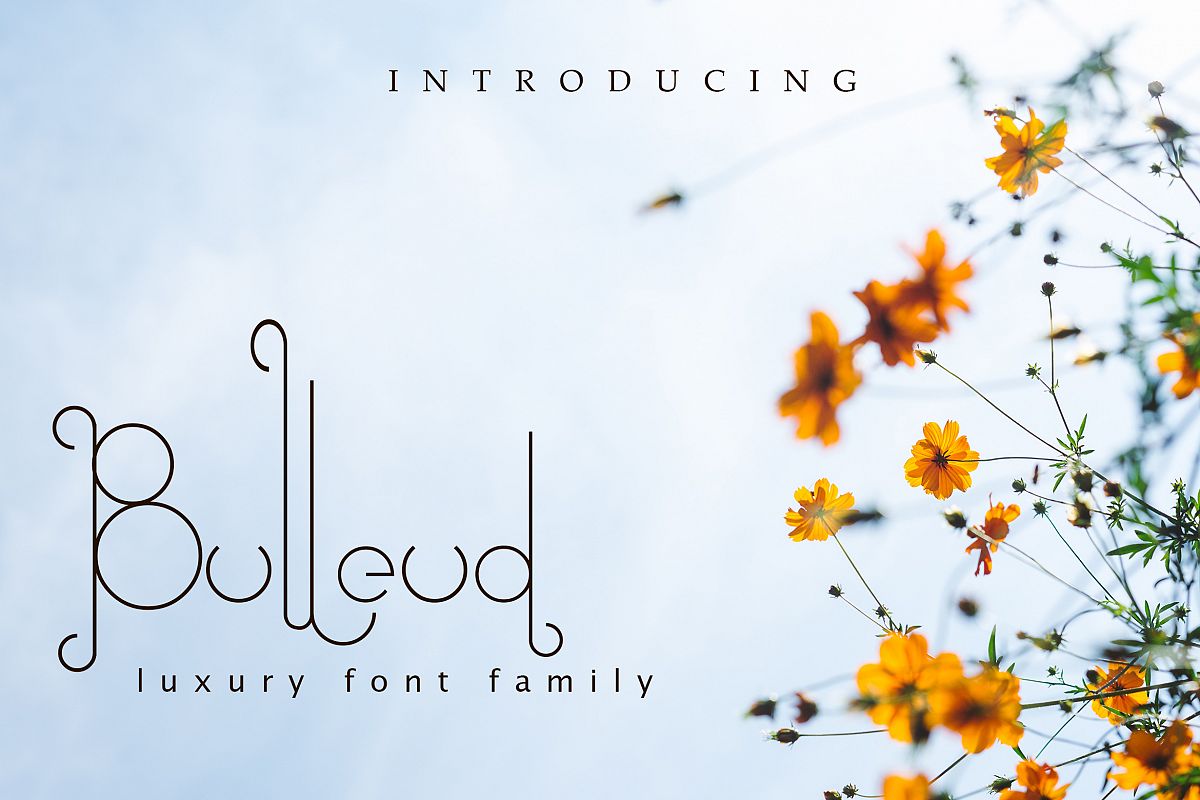
bulleud
Bulleud - a new modern & fresh script with circle characteristic make this font looks elegant, stylish and perfect for any awesome projects that need luxury style.
- ligatures